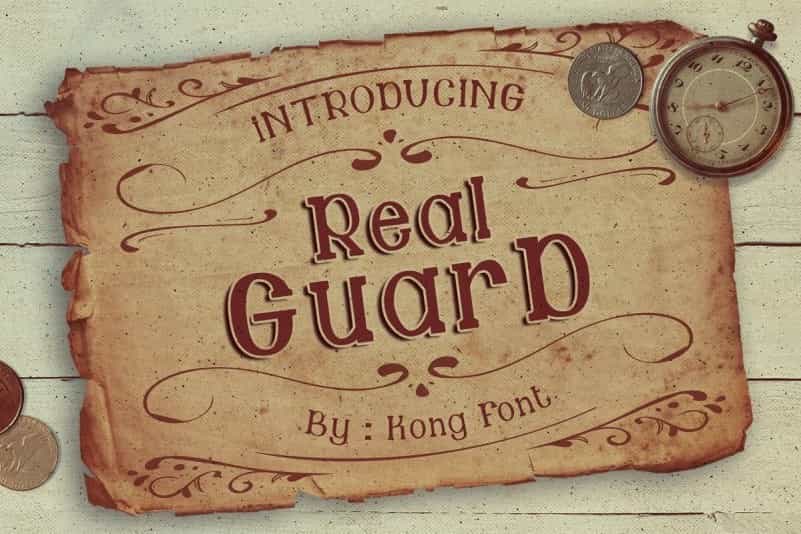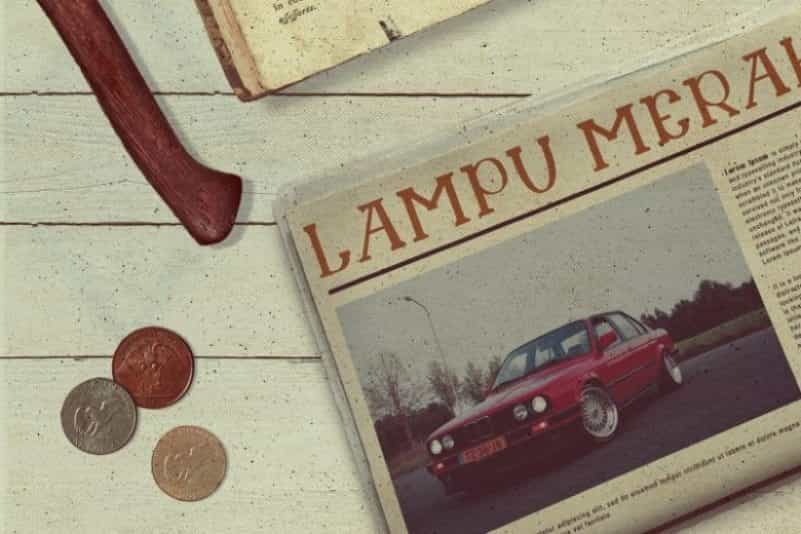
Guard Font is a retro and serif typeface, it is based on the style of classic western culture, custom motorcycle culture and has a vintage touch. Guard is the best tool for making a logotype, headlines or any other design works. Guard Font is one of the means to get your best designs for an authentic vintage aesthetic look.